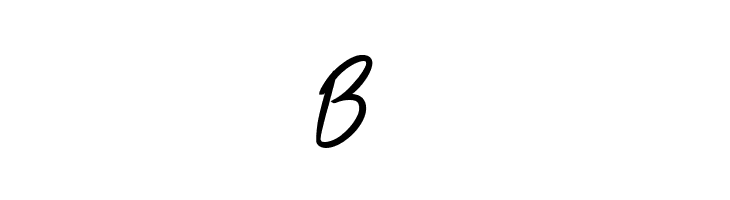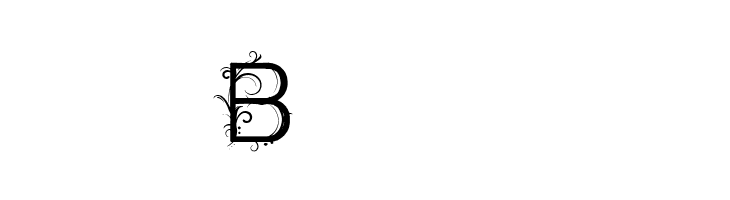
( Fonts by Steve Cloutier - www.cloutierfontes.ca )
A modern, geometric font with sharp angles and smooth curves.
( Fonts by www.kimberlygeswein.com - Kimberly Geswein )
A playful, italicized font ideal for educational materials.
( Fonts by Maelle.K - Thomas Boucherie )
A lively, dynamic handwritten font with smooth, continuous strokes.
( Fonts by CloutierFontes )
An ornate, decorative font with floral embellishments.
( Fonts by Vidkä© Foundry )
A bold, 3D cube-themed font with intricate, textured characters.
( Fonts by Courtney Babchyck )
A bold, geometric font with a futuristic and blocky design.